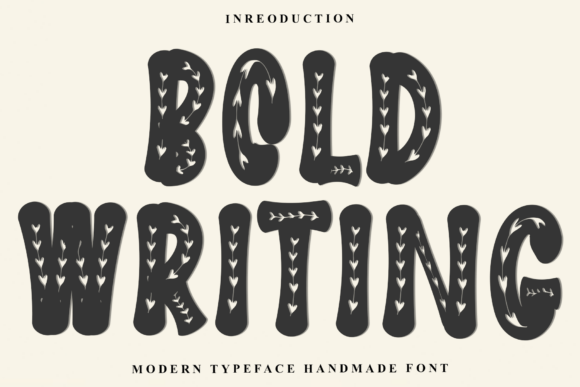
The Power of Bold Writing Font: A Friendly and Creative Companion for Designers
I’ll never forget the time I was working on a project for a client’s birthday party invitation. I had all the design elements ready, but I just couldn’t find the right font to tie everything together. The invitation needed to be fun, playful, and inviting – just like the party itself. That’s when I stumbled upon Bold Writing Font, and it instantly became the missing piece I needed. In this article, I’ll share my experience with Bold Writing Font, its unique features, and how you can make the most of it in your designs.
A Personal Review of Bold Writing Font
As a designer, I’m always on the lookout for fonts that can add a personal touch to my projects. Bold Writing Font did just that. Here’s what I love about it:
• ✨ Warm and Friendly: The font’s round, playful strokes create a relaxed and approachable feel that’s perfect for personal projects, invitations, and social media graphics.
• 💫 Charming Aesthetic: The font’s hand-drawn look adds a fun and unique touch to any design, making it ideal for creative hobbyists and designers alike.
While Bold Writing Font has won my heart, it’s not without its quirks:
• 🤔 Limited Formality: As a casual font, Bold Writing might not be the best fit for formal or professional projects that require a more serious tone.
• ⚠️ Glyph Overload: With so many glyphs available, it can be overwhelming to navigate and find the perfect one for your design.
The Story Behind Bold Writing Font
Bold Writing Font was designed with the intention of creating a friendly and approachable typeface. The designer, inspired by the warmth and playfulness of handwritten fonts, crafted Bold Writing to be a versatile and creative companion for designers. With its charming aesthetic and extensive glyph library, Bold Writing Font has become a popular choice among designers and creative hobbyists.
What is the best use for Bold Writing Font? Bold Writing Font is perfect for personal projects, invitations, social media graphics, and any design that requires a friendly and approachable feel.
Is Bold Writing Font suitable for formal projects? While Bold Writing Font is a beautiful font, it may not be the best fit for formal projects due to its casual and playful nature.